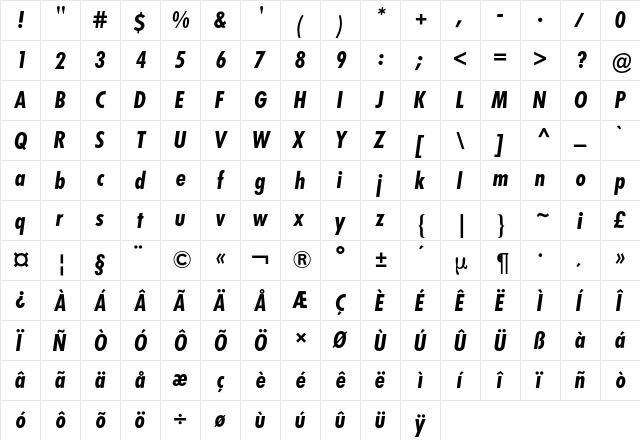
Futura Condensed BQ Regular Font Preview
Design Context for Futura Condensed BQ Typeface
Futura Condensed BQ has a distinctly futuristic character, with geometric precision and clean angles that feel at home in technology, gaming, and sci-fi contexts. The condensed width makes it efficient for tight spaces without sacrificing legibility.
Pro Tip: Use Futura Condensed BQ in combination with a neutral sans for body text. Let it define the brand voice in headlines while keeping reading comfortable elsewhere.